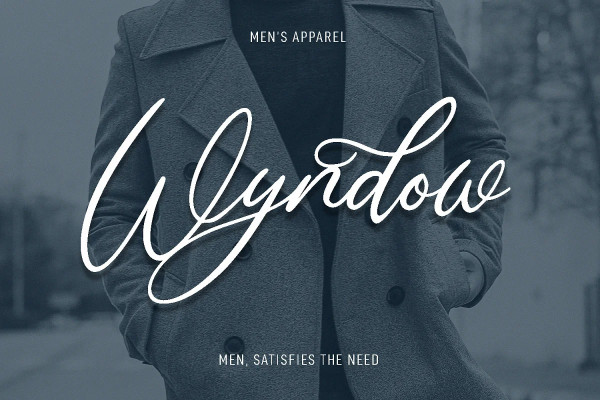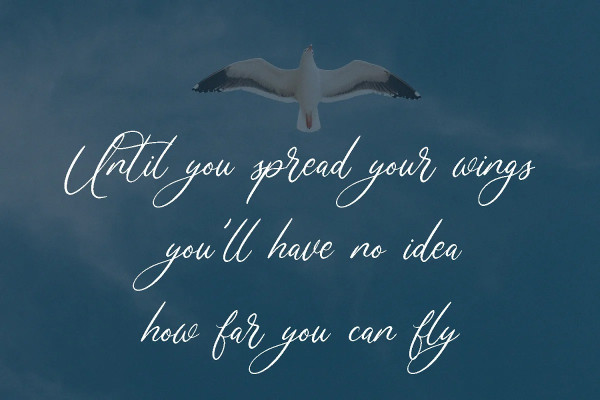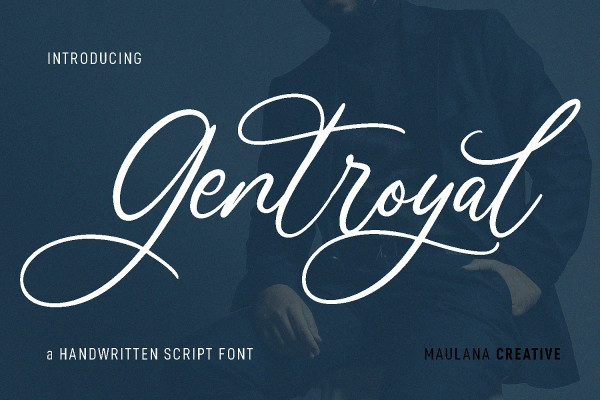
Gentroyal Font
Gentroyal Font is a fancy unique classy cursive script font. With light contrast stroke, fun character with a bit of ligatures and stylistic alternates. To give you an extra creative work. Gentroyal font support multilingual more than 100+ language. This font is good for logo design, Social media, Movie Titles, Books Titles, a short text even a long text letter and good for your secondary text font with sans or serif. Make a stunning work with Gentroyalfont.